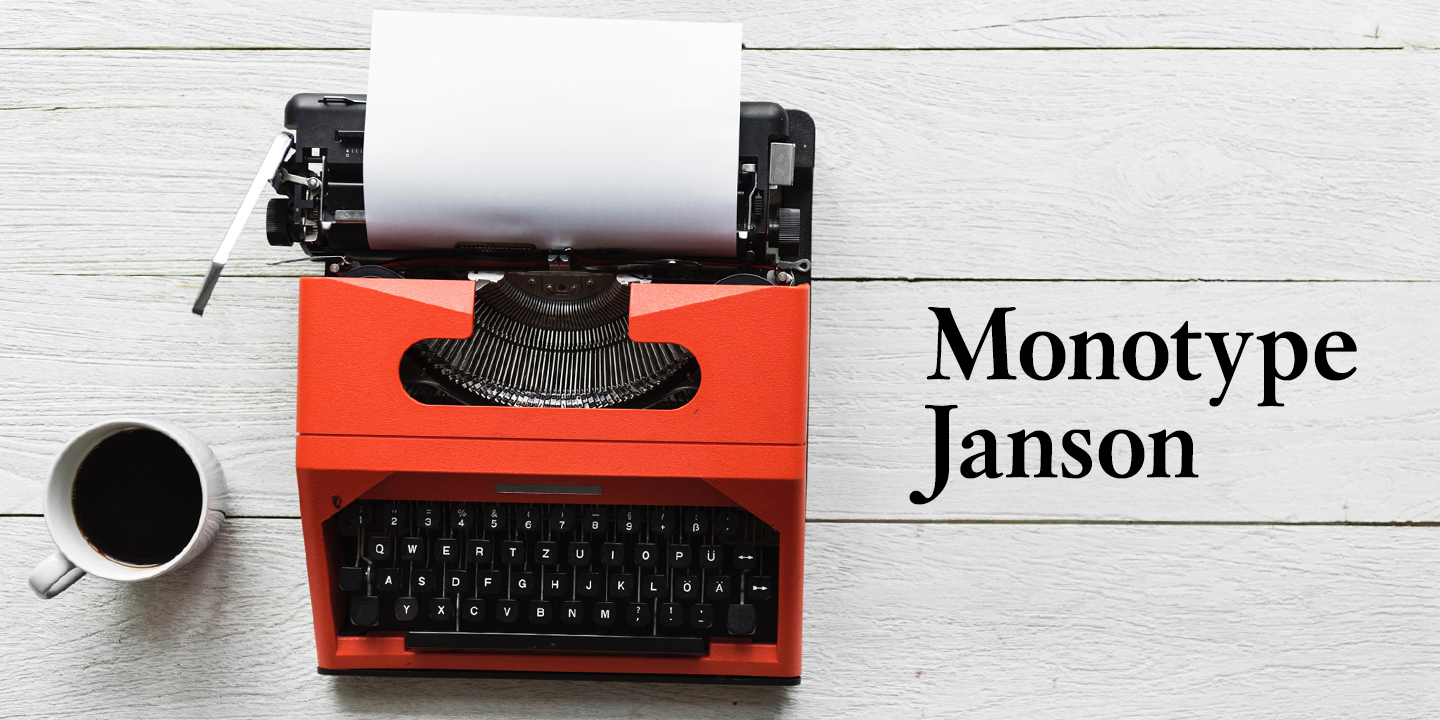
Monotype Janson Font Free Download – A Timeless Classic for Sophisticated Typography
Looking for a font that embodies centuries of typographic excellence? Monotype Janson Font Free Download offers a revered serif design with historical elegance, perfect for book publishing, luxury branding, editorial design, and any project demanding refined readability. Based on 17th-century Dutch originals, this typeface blends Old World charm with modern functionality.
Why Designers Treasure Monotype Janson
Monotype Janson Font Free Download delivers unmatched pedigree with:
Warm, humanist letterforms with subtle calligraphic influence
Exceptional text readability in long-form content
Complete family from Light to Bold with italics
Perfect for serious publishing and academic works
Monotype Janson Font Free Download – The Scholar's Choice
Elevate your most important projects with this enduring typeface for:
Book typography & literary journals
University publications & thesis documents
Luxury brand identity & high-end packaging
Museum catalogs & cultural institution materials